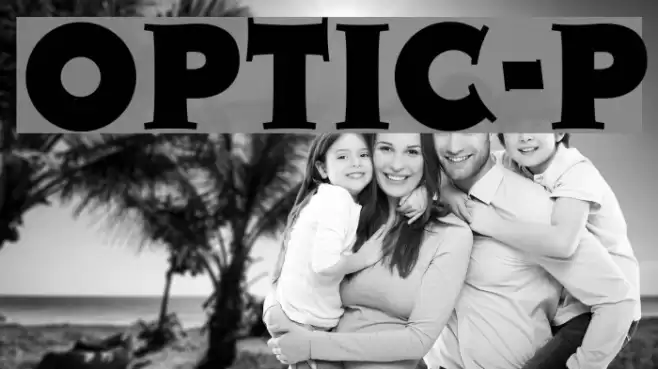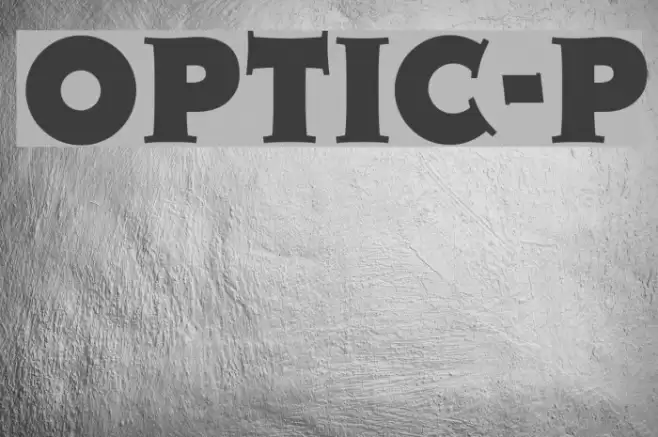
OPTICharlie-Pointed Font
OPTICharlie-Pointed Description
This font features a bold and dramatic style with pointed serifs and a strong presence. The uppercase letters are particularly striking, with sharp angles and a sense of movement. The lowercase letters maintain the same boldness, ensuring consistency throughout. Numbers and special characters are equally bold, with unique shapes that add to the overall aesthetic. The font's design is reminiscent of vintage or retro styles, making it suitable for projects that require a touch of nostalgia or a bold statement. Its distinct appearance makes it ideal for attention-grabbing headlines or logos.
A bold, vintage-style font with pointed serifs and dramatic flair from Uncategorized fonts.
- Proposed Projects: Ideal for vintage-themed posters, logos, and headlines that require a bold statement.
- Overall Style: Vintage